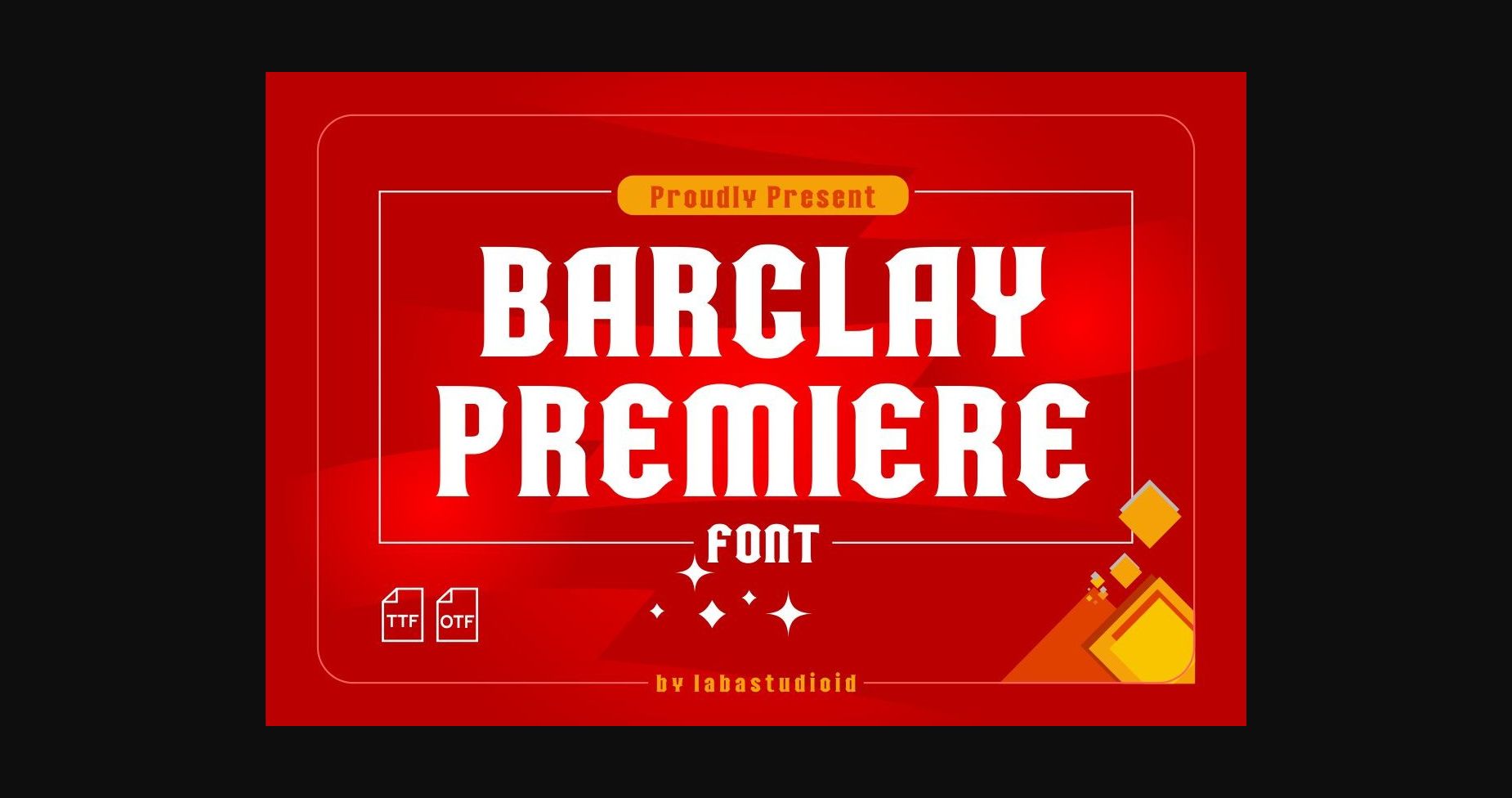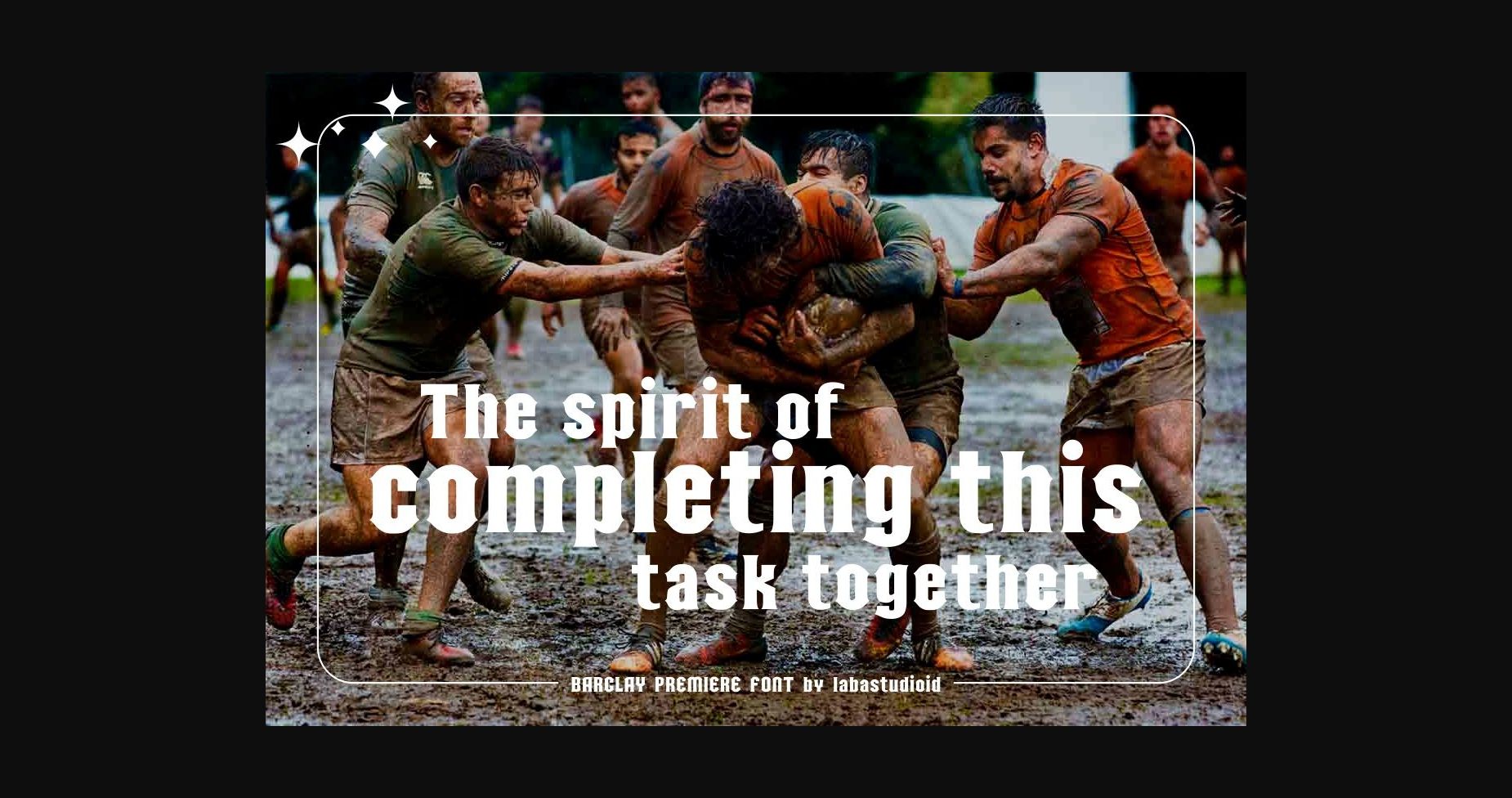
About Barclay Premiere Font
Barclay Premiere is a typeface that is very suitable to be applied to all sports related materials. Bold design, simple and elegant curves, perfect spacing with excellent legibility, Barclay Premiere is designed with more than 300 glyphs : lowercase and uppercase, number and punctuation and of course multilingual. To make it easier, we provide 2 types: TTF and OTF.